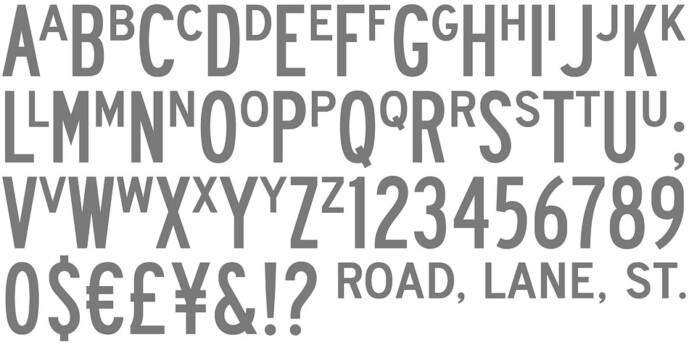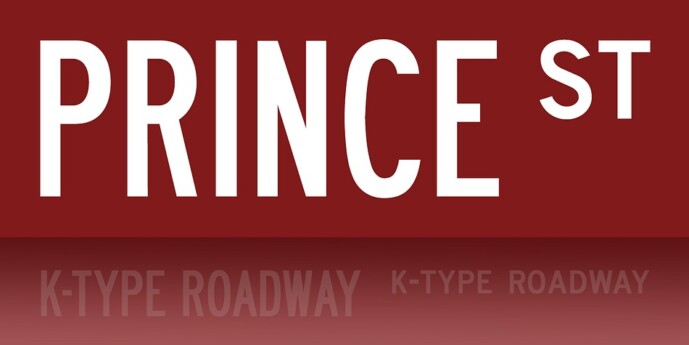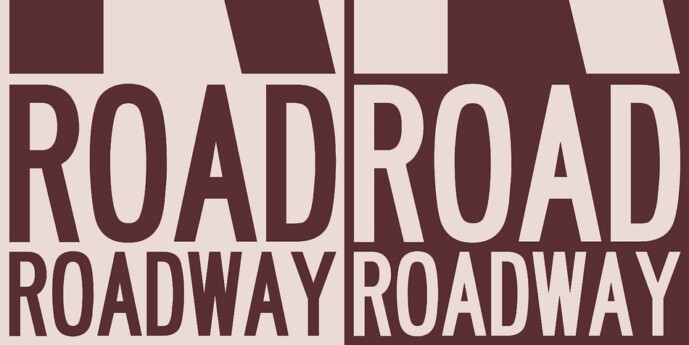
Roadway Sans Font
Designer: Keith Bates
Roadway Sans Font is based on U.S. highway lettering observed on New York street signs. Two weights of capitals would often be used on the same sign, condensed for the main name, and a half-size regular superscript for ‘road’ or ’street’.
Roadway is a Small Caps font. The upper case consists of condensed capitals, the lower case consists of regular width small caps, sized at 50% and superscript.
A small superscript comma and period, aligned with the lowercase, are at keystrokes < and > respectively.
A small hyphen lining with the superscript lowercase is at the en dash position (Mac: option hyphen, Windows: alt-0150).